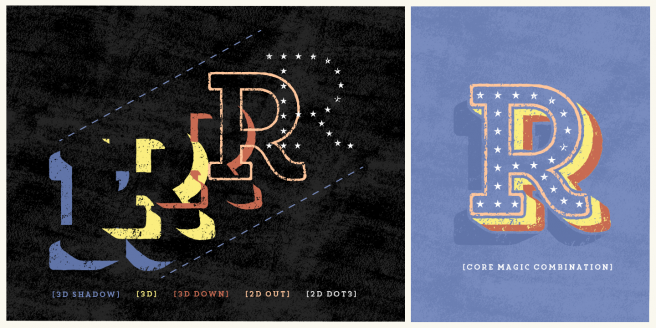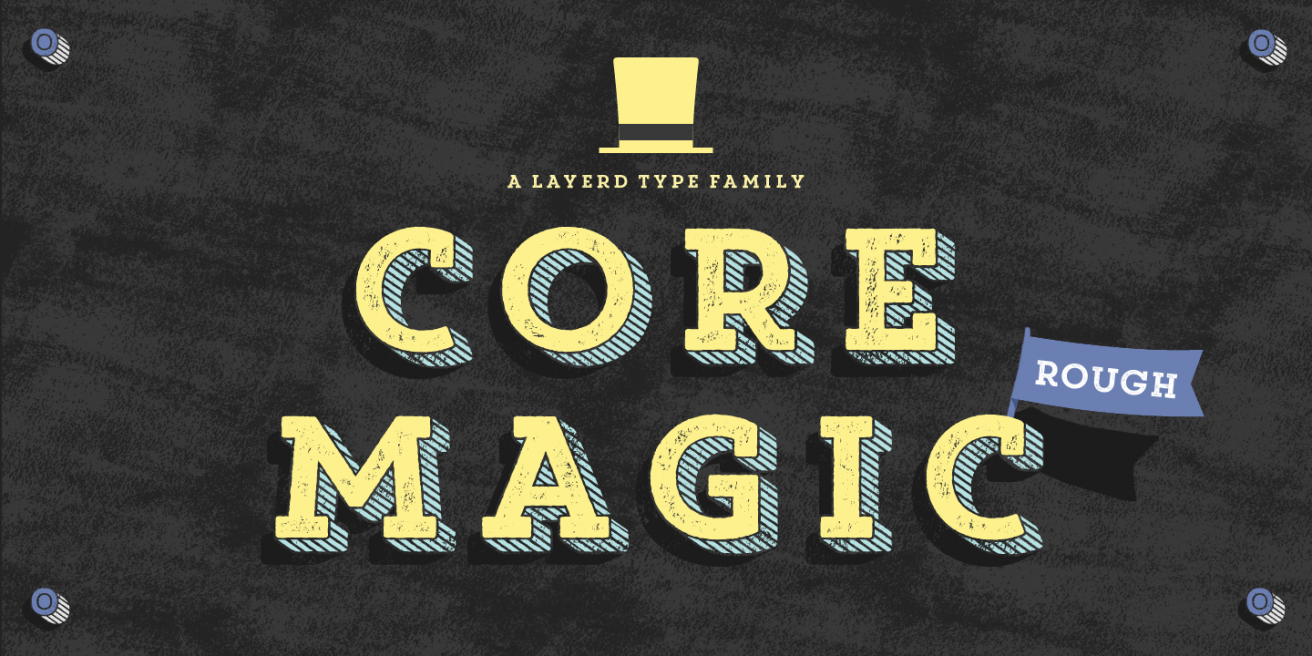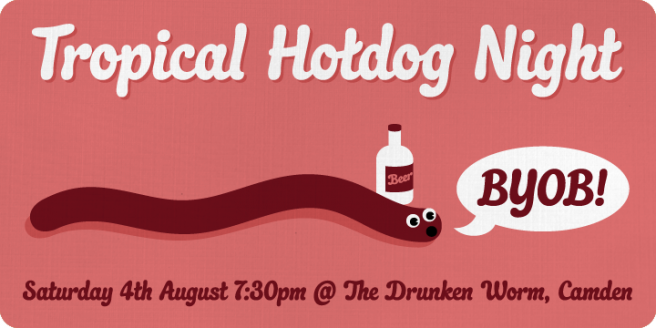
Our December 31, 2015 issue of Font Faves features Transat Text from Typetanic Fonts, Quayside from Schizotype Fonts, and Core Magic from S-Core.
Transat Text takes the art deco stylings of its sibling Transat and tames them to create an incredibly useful text font. Readable at very small sizes even when thin, Transat Text works in reports and charts better than most fonts, and all you need to do is put a bold version in headings to create a cohesive design that pops.
Transat Text
Typetanic Fonts
Dave Rowland of Schizotype has an eye for scripts, and this baseball-esque font is no different. Packed full of OpenType features and bursting with charm, this font is a must for modern designers looking to add some fun to their designs.
Quayside
Schizotype Fonts
Speaking of fun, Core Magic Rough has it in spades. This is a family that really benefited from the addition of texture, especially with all of its shading built in. Use it for big display text, and don’t forget the shadows, the shadow layers included in this font are spectacular.
Core Magic Rough
S-Core